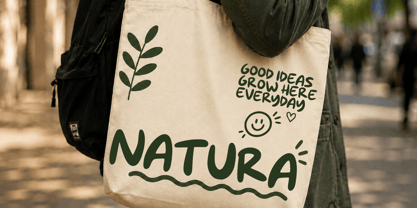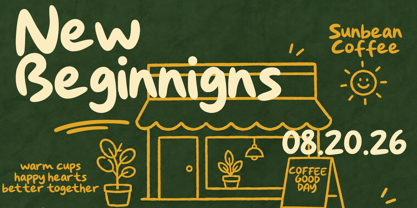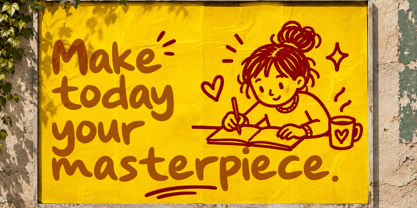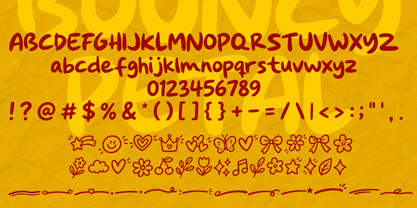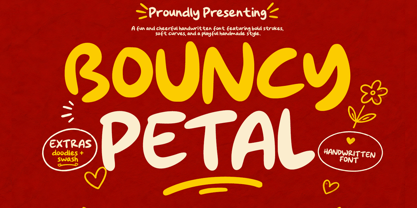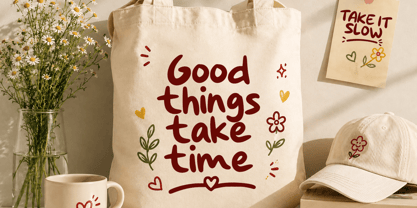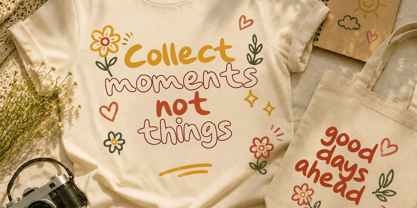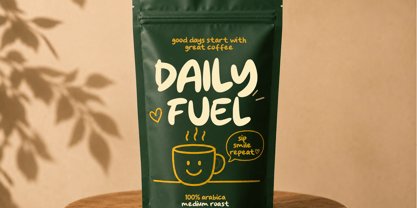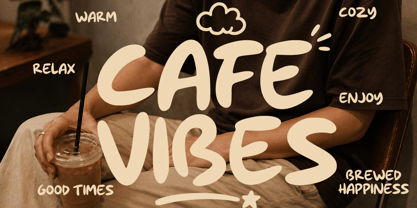
Bouncy Petal
La familia tipográfica Bouncy Petal fue diseñada por Muhammad Zaini y publicada por Cocodesign. Bouncy Petal contiene 3 estilos y opciones de paquete familiar. Más información sobre esta familia
Bouncy Petal is a fun and cheerful handwritten display font with bold strokes, soft curves, and a playful handmade character. Its naturally irregular shapes create a warm, expressive look while keeping the letters clear and easy to read.
Perfect for adding a joyful and creative touch to branding, logos, packaging, posters, greeting cards, invitations, social media graphics, stickers, apparel, children’s designs, and craft projects.
The font also includes extra doodles and swashes to help create more expressive and decorative typography. Mix and match the characters and embellishments to build eye-catching compositions with a genuine handmade feel.